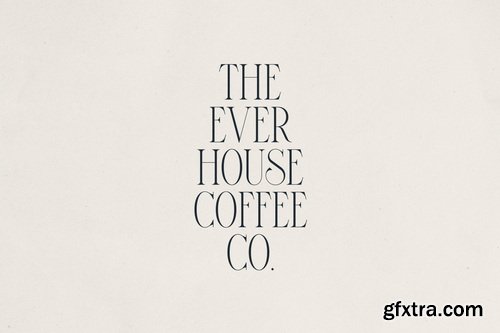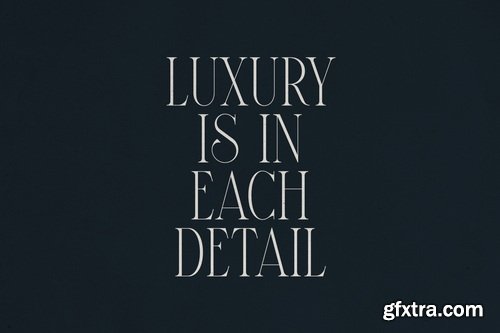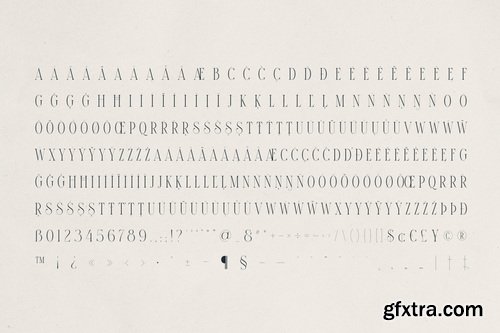
- Introducing Elantrae, a refined serif typeface that blends classic sophistication with contemporary elegance. With its tall, slender letterforms, high contrast strokes, and graceful curves, Elantrae is designed to elevate your branding, editorial, and luxury design projects.
- Perfect for fashion labels, beauty brands, high-end packaging, wedding stationery, and boutique businesses, Elantrae delivers a modern yet timeless aesthetic. Its subtle vintage undertone and stylish ligatures make it ideal for logos, magazine headlines, product labels, and refined social media content.